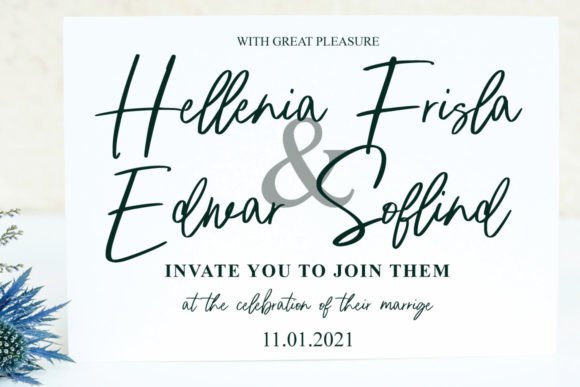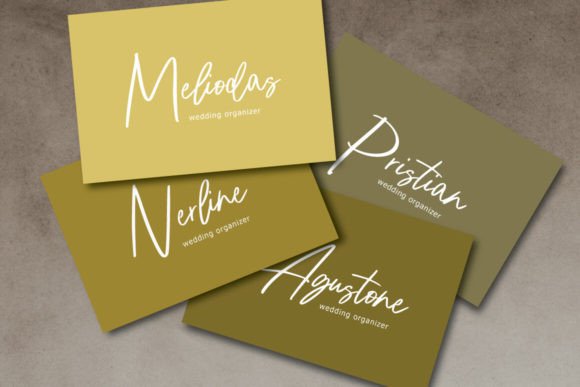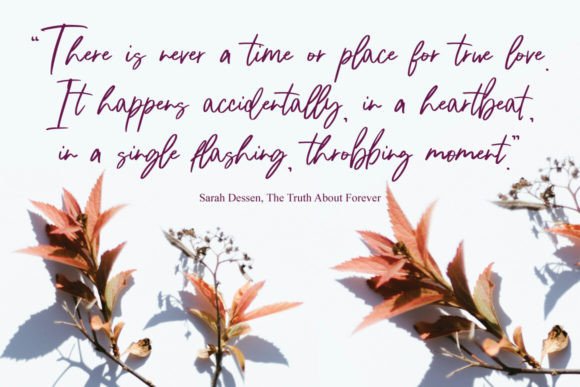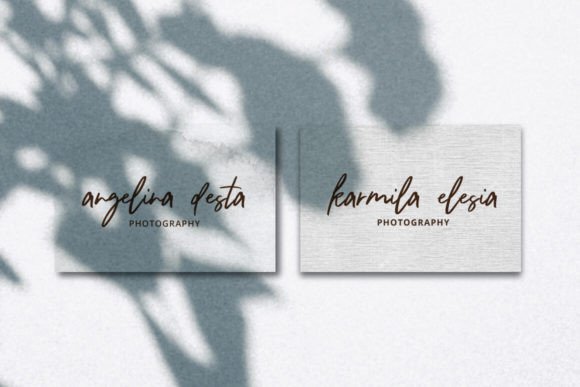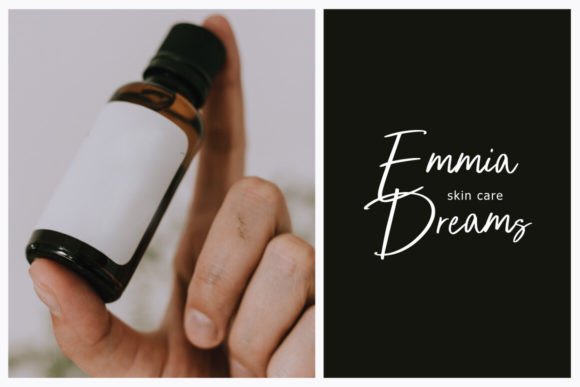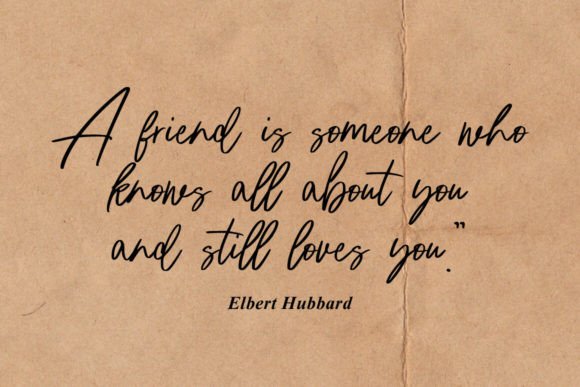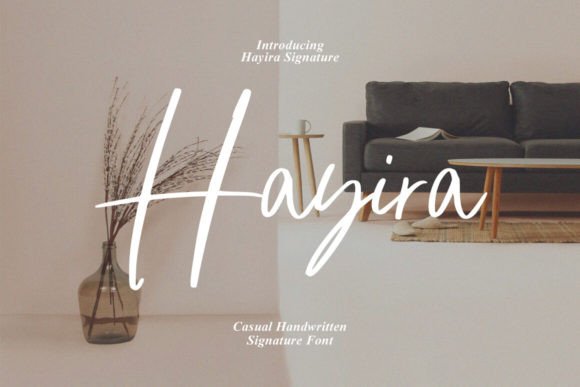
Introducing Hayira Font: A Stunning Handmade Calligraphy Script
Are you looking for a unique and elegant font to elevate your designs? Look no further than Hayira Font, a beautiful handmade calligraphy script that is sure to impress. With its decorative characters, dancing baseline, and extensive range of glyphs, Hayira Font is the perfect choice for designers and crafters seeking to add a touch of sophistication to their work.
What Makes Hayira Font So Special?
Hayira Font is a signature script that boasts a stunning handmade calligraphy style, complete with decorative characters and a dancing baseline. This font is perfect for creating beautiful invitations, greeting cards, branding materials, business cards, quotes, posters, and more. With over 200 glyphs at your disposal, you’ll have endless opportunities to experiment and create unique designs that showcase your creativity.
Open Type Features for Ultimate Flexibility
One of the standout features of Hayira Font is its extensive range of Open Type features. These include Swash, Stylistic Sets, Stylistic Alternates, and Ligature, which can be accessed using Open Type savvy programs such as Adobe Illustrator, Adobe InDesign, Adobe Photoshop, Corel Draw X version, and Microsoft Word. This allows you to tailor your designs to suit your specific needs and experiment with different styles and combinations.
PUA Unicode for Easy Access
Hayira Font has been specially coded with PUA unicode, making it easy for designers and crafters to access all the alternate characters. This means that you can easily switch between different glyphs and experiment with different designs without having to worry about complicated coding or technical issues.
Hayira Font is an ideal choice for designers and crafters who want to add a touch of elegance and sophistication to their work. Whether you’re creating invitations, business cards, or posters, this font is sure to impress. With its extensive range of glyphs and Open Type features, you’ll have endless opportunities to experiment and create unique designs that showcase your creativity.
Key Features of Hayira Font
- Handmade calligraphy style with decorative characters and dancing baseline
- Over 200 glyphs, including Swash, Stylistic Sets, Stylistic Alternates, and Ligature
- Open Type features for ultimate flexibility
- PUA unicode for easy access to alternate characters
Tips for Using Hayira Font
To get the most out of Hayira Font, we recommend experimenting with different Open Type features and glyphs. Try combining different swashes and stylistic sets to create unique and eye-catching designs. Don’t be afraid to get creative and push the boundaries of what’s possible with this stunning font.
| Font Name | Hayira Font |
| Author | Tebaltipis.std |
Hayira Font is a truly exceptional handmade calligraphy script that is sure to elevate your designs to the next level. With its extensive range of glyphs, Open Type features, and PUA unicode, this font offers endless opportunities for creativity and experimentation. Whether you’re a designer or crafter, Hayira Font is an essential addition to your font library.